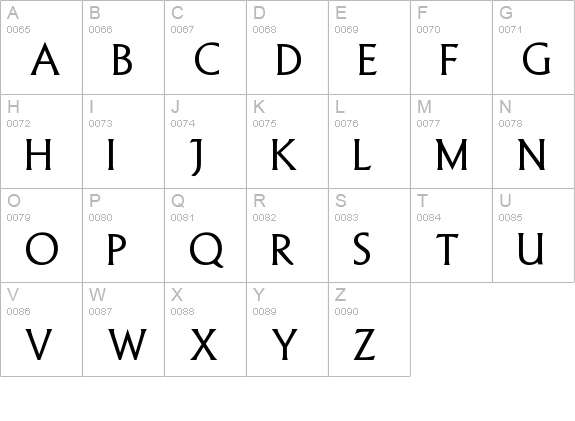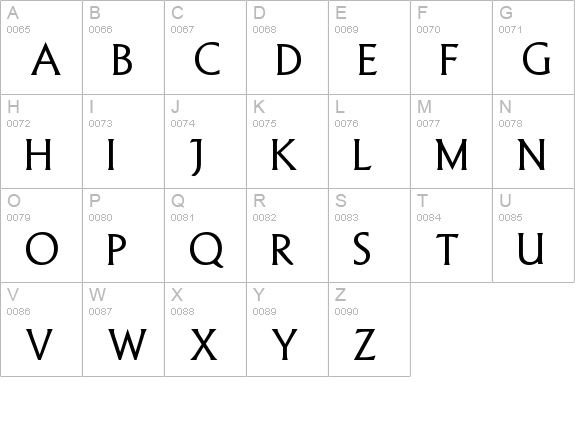
Abuela Font Details
Abuela font is a beautifully crafted typeface that exudes elegance and charm. With its classic yet modern design, Abuela is perfect for a wide range of design projects, whether it be branding, invitations, or editorial layouts. The graceful curves and stylish serifs of Abuela font add a touch of sophistication to any text, making it a versatile choice for both print and digital applications. What's even better is that Abuela font is available for free download at FontsMarket.com. This means you can easily access this stunning typeface without any cost, allowing you to elevate your designs without breaking the bank. Don't miss out on the opportunity to enhance your projects with the timeless beauty of Abuela font – download it for free today!